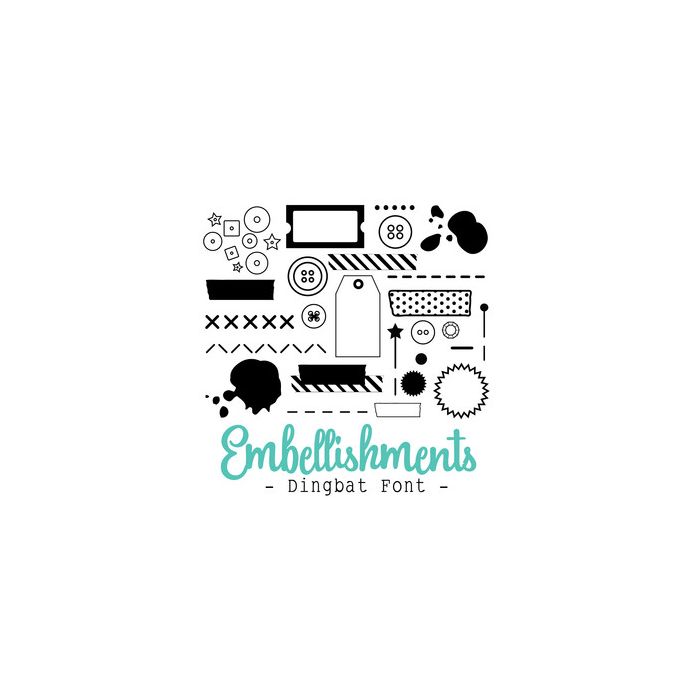
Embellishments Dingbat Font. Includes 26 decorative elements including sequins, gems, buttons, patterned and plain washi tape, labels, pins, staple, tag, stitching and more to use as embellishments, perfect for card making, inserts, scrapbooking, gifts and more!. All are assigned to an upper case or lower case letter starting with 'A' or can be accessed via glyphs. Can be used with my Baubles font here in the Silhouette store! For more design ideas, coordinating designs & products and inspiration, please visit my blog http://www.sarahhurleyblog.com